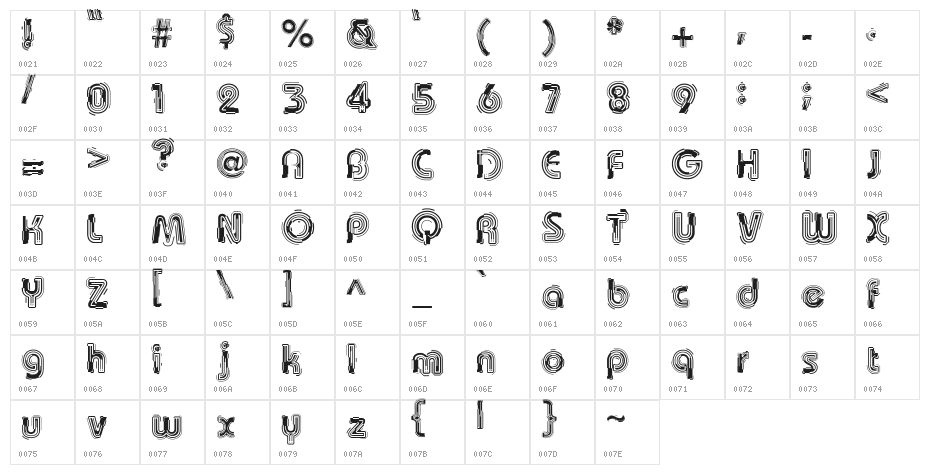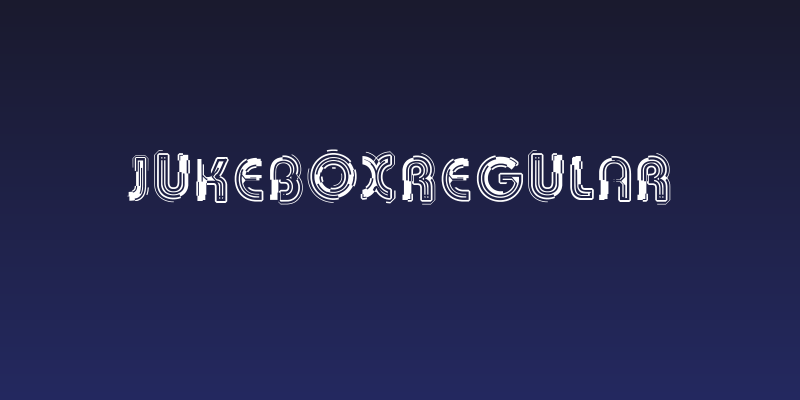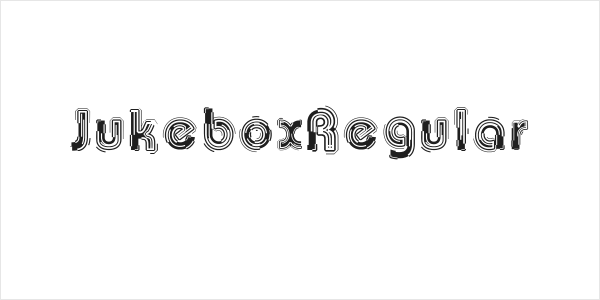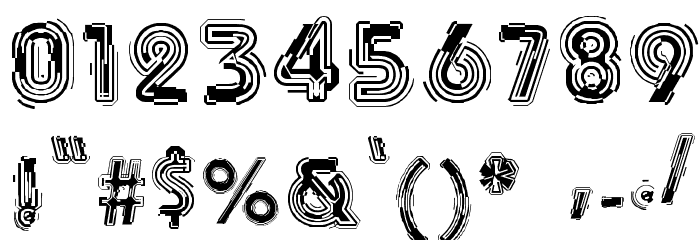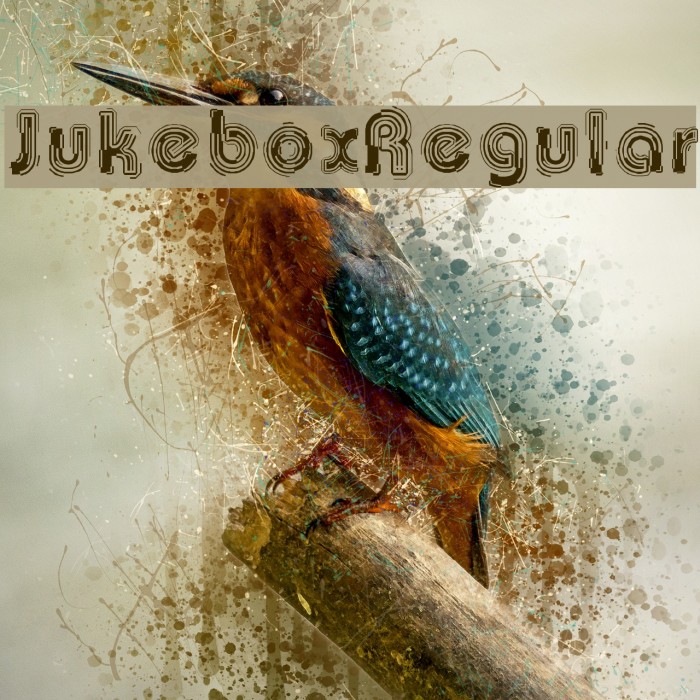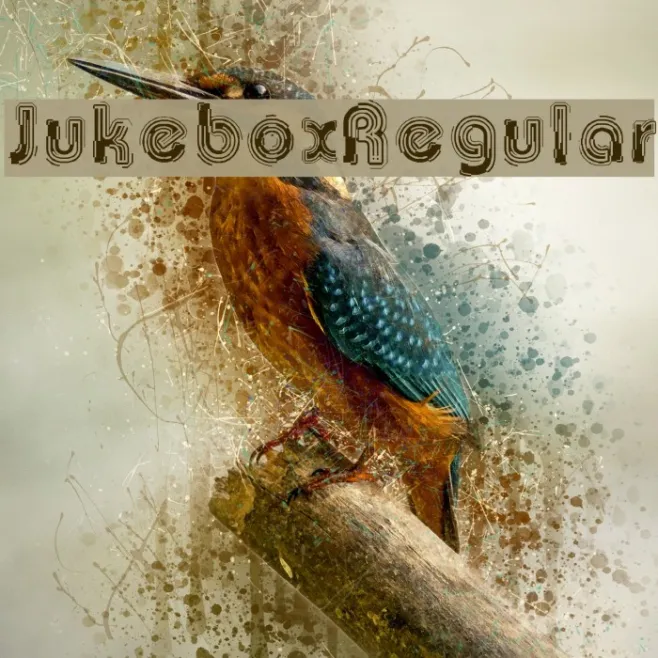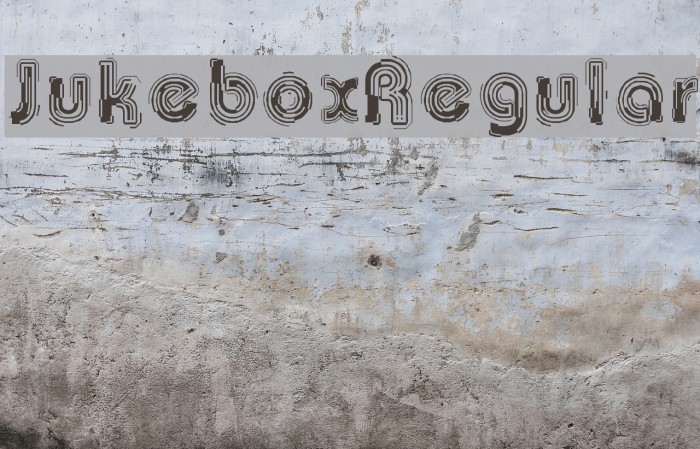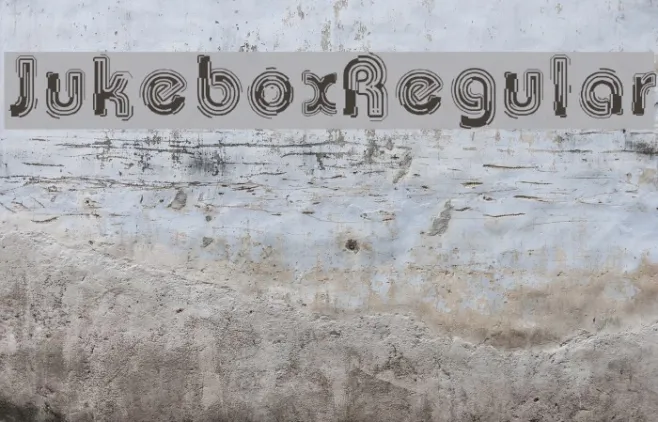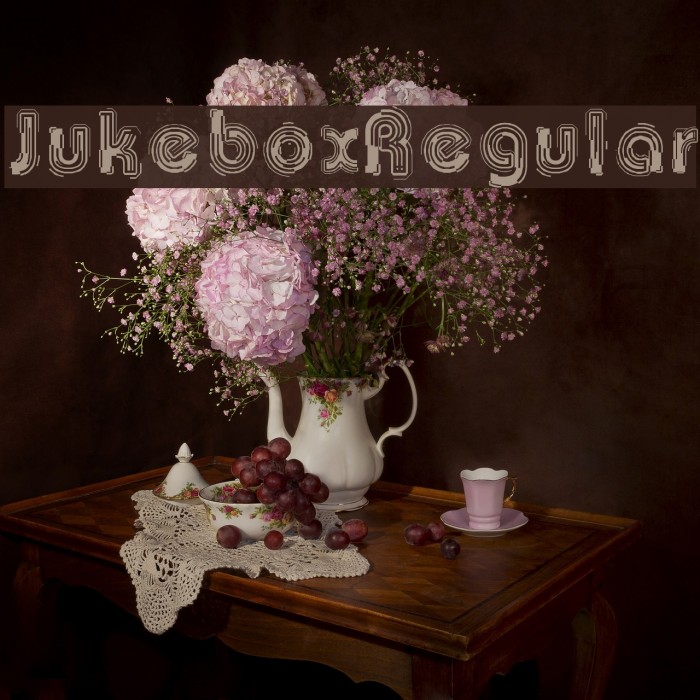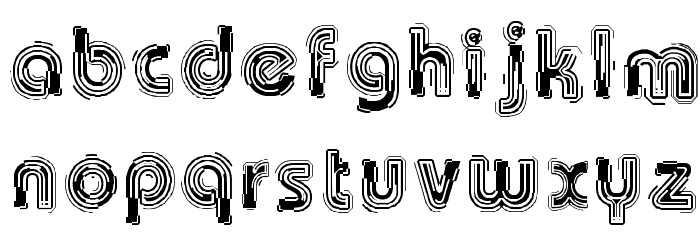
JukeboxRegular Font
JukeboxRegular Description
This font features a playful and bold design with a retro vibe, characterized by its layered, outline style. Each character is composed of multiple concentric lines, creating a sense of depth and movement. The uppercase and lowercase letters maintain a consistent style, with rounded edges and a slightly condensed form. The numbers and special characters follow the same design principles, ensuring a cohesive look across all elements. This font's unique appearance makes it stand out, offering a nostalgic feel reminiscent of vintage signage or jukebox labels.
| Proposed Projects | Ideal for retro-themed posters, vintage branding, music event flyers, and creative packaging designs. |